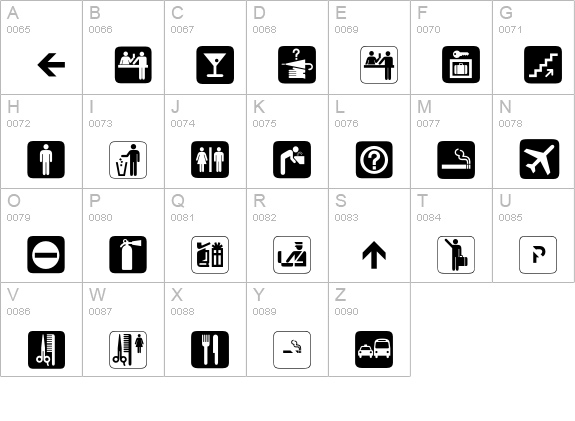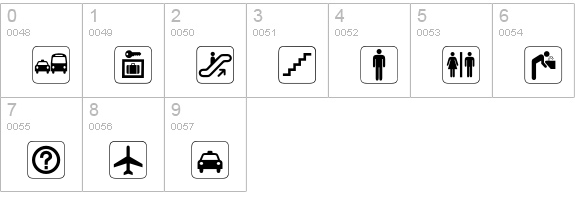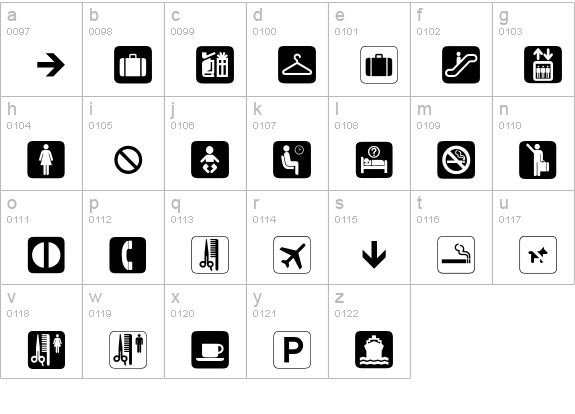
CommunicationsP06 Font Details
CommunicationsP06 is a modern and sleek font that exudes professionalism and sophistication. Its clean lines and sharp edges make it perfect for a wide range of design projects, from business presentations to branding materials. This versatile font is sure to make a statement and leave a lasting impression on viewers. Best of all, CommunicationsP06 is available for free download at FontsMarket.com. This means that you can easily access this high-quality font without having to worry about any additional costs. Whether you're a designer looking to enhance your projects or a business owner in need of a stylish font for your brand, CommunicationsP06 is the perfect choice. Download it today and elevate your designs with this exceptional typeface.